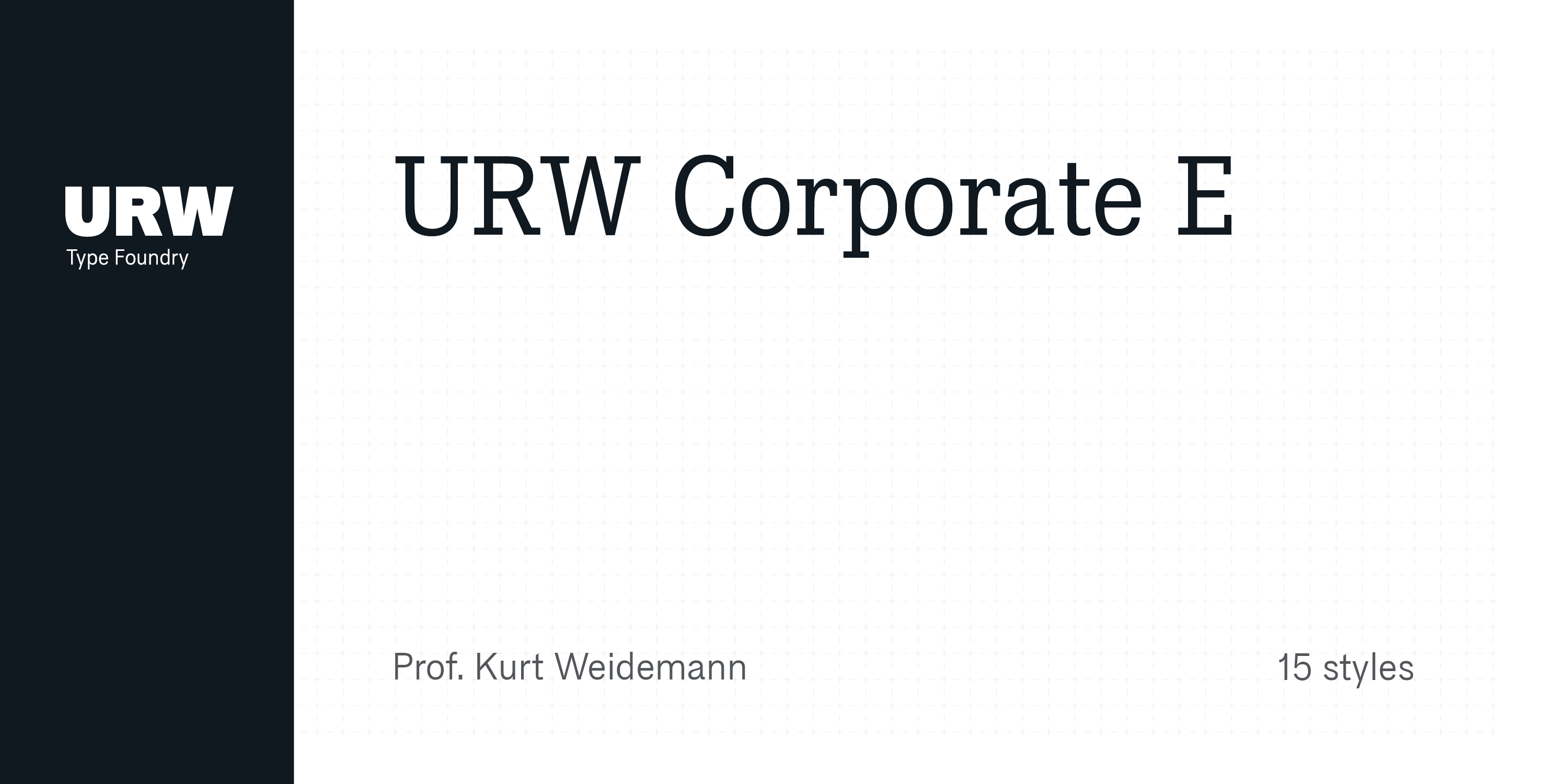
Corporate E Font Free Download is a clean, modern, and professional typeface designed specifically for corporate branding, business documents, presentations, and marketing materials. Its crisp lines and balanced structure ensure maximum readability and convey trustworthiness.
Perfect for logos, reports, websites, and promotional content, Corporate E Font Free Download helps establish a strong and credible brand identity. The font’s neutral yet sophisticated style makes it highly versatile across various business applications.
Elevate your business communications and visual identity with Corporate E Font Free Download, the perfect font to showcase professionalism and clarity.